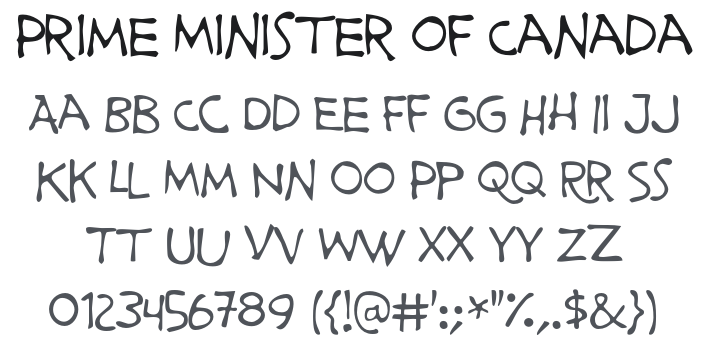
Prime Minister of Canada Font
About Prime Minister of Canada
Prime Minister of Canada is a free-and-easy hand-lettered cartoon typeface with loose, carefree letterforms that feel dashed off with a felt-tip pen in a cheerful mood — wobbly, warm, and endearingly imperfect. Its informal, comic-strip personality makes every word feel approachable and fun. Perfect for children's media, comedy branding, casual event posters, greeting cards, and any design needing a lighthearted, hand-drawn charm.